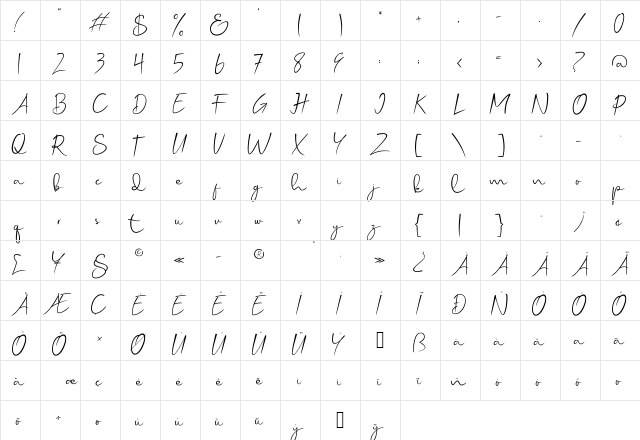
hellogalleria Regular
Design Context for hellogalleria Typeface
hellogalleria is a composed and adaptable typeface that performs quietly and consistently across a wide range of design contexts.